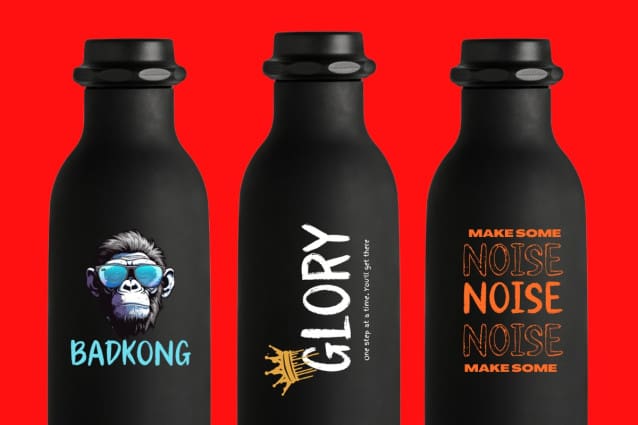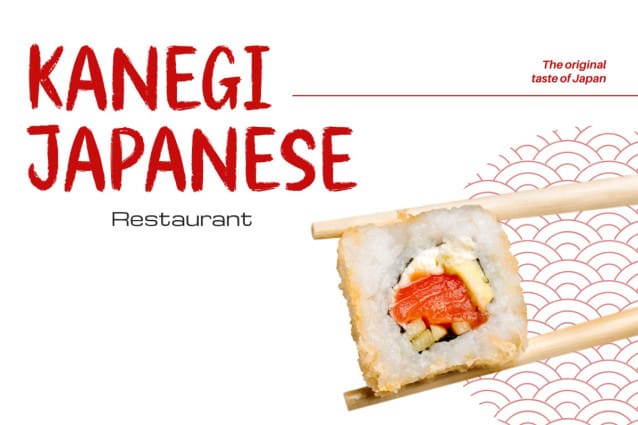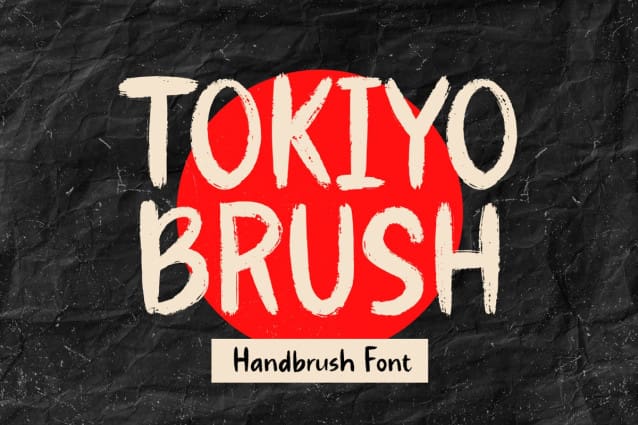
Tokiyo Brush Font
Tokiyo Brush Font is a bold, energetic handbrush font that brings a raw, artistic vibe to any design. With its textured strokes and expressive style, it’s perfect for posters, branding, and designs that need a touch of urban flair. Add personality and impact with Tokiyo Brush!